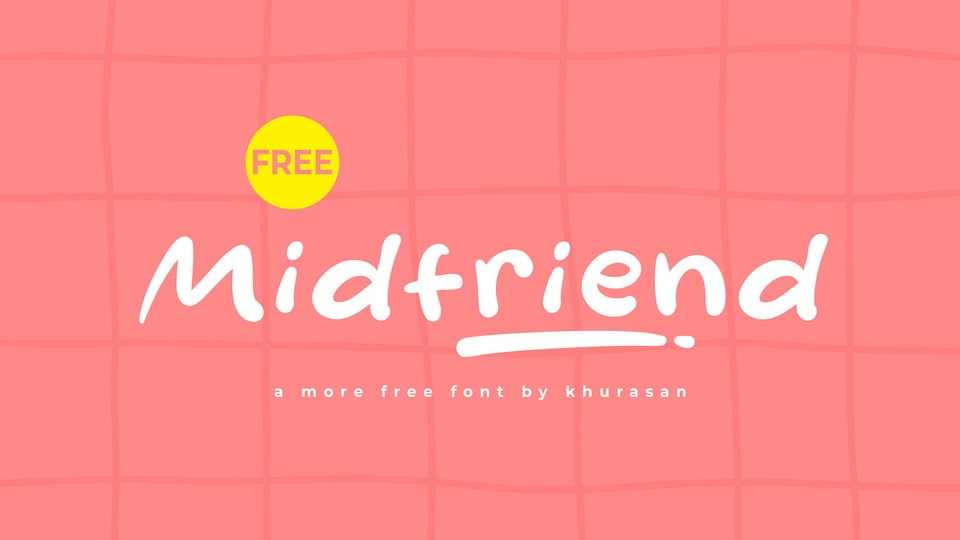
Download Midfriend font, a friendly, handwritten typeface with a soft, casual tone and a heartwarming vibe. Its smooth strokes and slightly bouncy baseline create a natural, approachable rhythm.